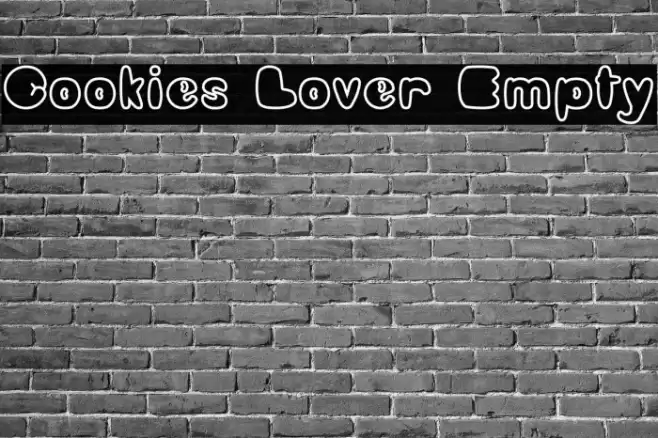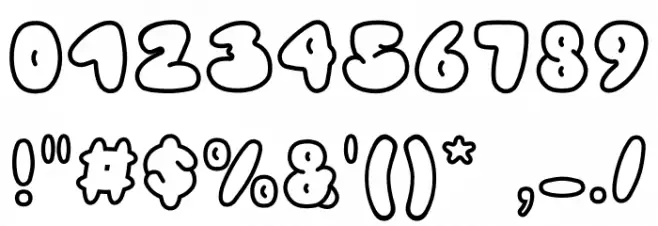
Cookies Lover Empty Font
Cookies Lover Empty Description
This playful and whimsical font features bold, rounded characters with a hollow interior, giving it a fun and lighthearted appearance. The letters are evenly spaced and maintain a consistent thickness throughout, creating a uniform look. The font's bubbly style is reminiscent of childhood and playful themes, making it ideal for projects that aim to convey a sense of joy and creativity. The characters are easy to read, with a distinct separation between each letter, enhancing legibility while maintaining a decorative flair.
A playful, hollow, and rounded font perfect for fun and creative projects from Cartoon fonts.
- Proposed Projects: Ideal for children's books, playful branding, party invitations, and creative posters.
- Overall Style: Playful